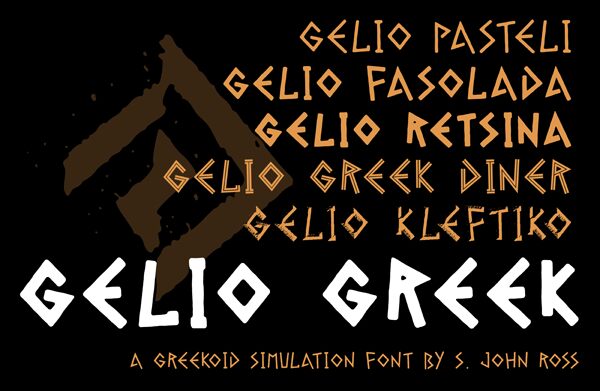
Gelio Retsina by S. John Ross of Cumberland Fontworks is a free cartoon display font with chunky, uneven letters, sharply cut corners, pinched joints, irregular openings, and broad emphatic strokes. No two shapes seem to follow quite the same logic.
Its lively comic-book character suits children's publishing, game titles, and festival posters, especially when the lettering can join the illustration. The same crooked silhouettes connect those uses with snack packaging and novelty merchandise, where the alphabet can function as expressive mascots.